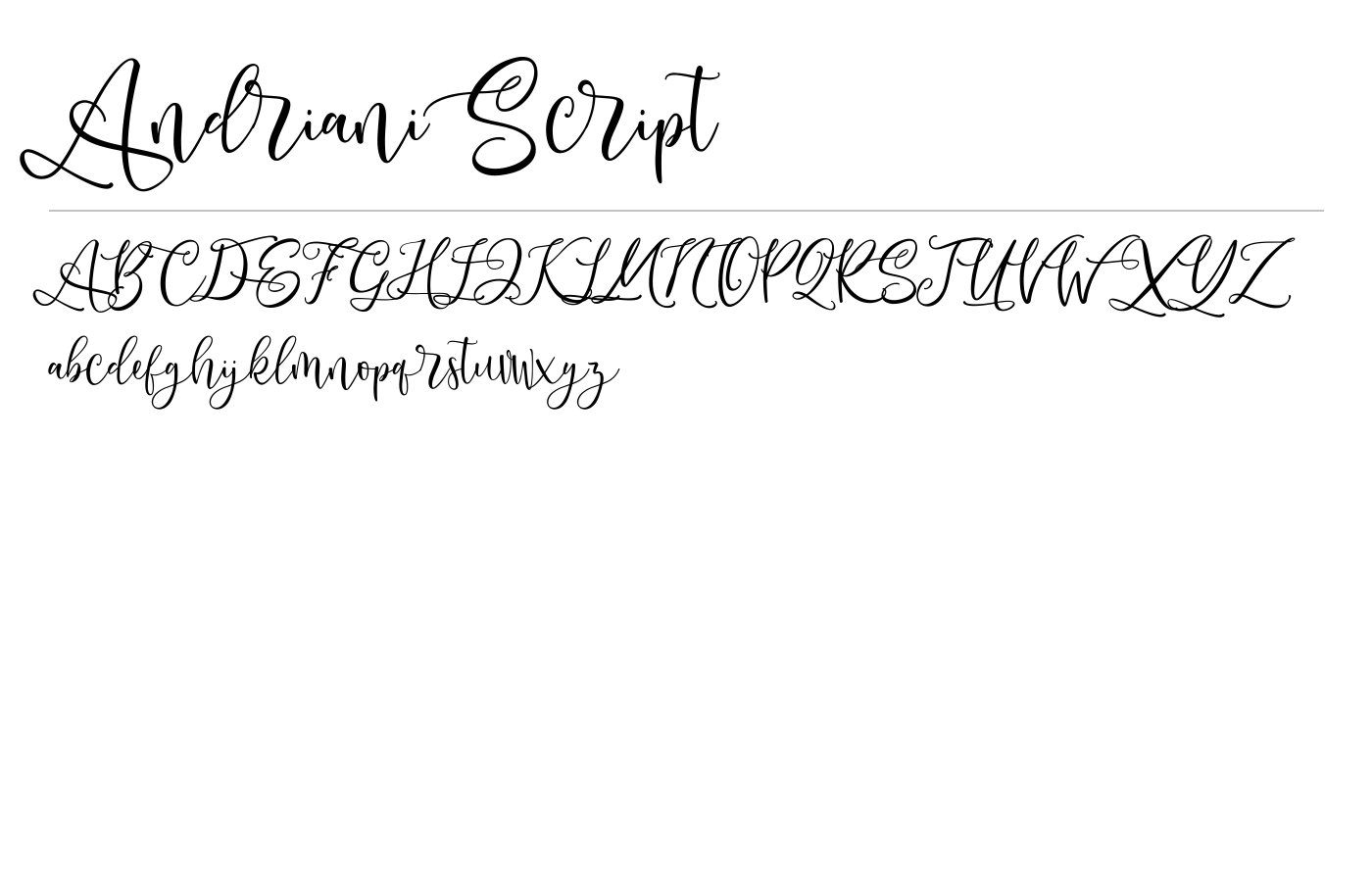
Andriani Script is an elegant, flowing script font that features delicate, calligraphic strokes with graceful loops and swashes, giving it a charming, hand-lettered feel. Its slender, connected letterforms and moderate contrast make it ideal for invitations, branding, and decorative text where a sophisticated, personal touch is desired. This font works beautifully in designs that seek to convey elegance and creativity, such as wedding stationery, luxury products, and stylish logos.
Andriani Script Font
About Andriani Script Font
| Font family | Andriani Script Font |
| Designer | thirtypath |